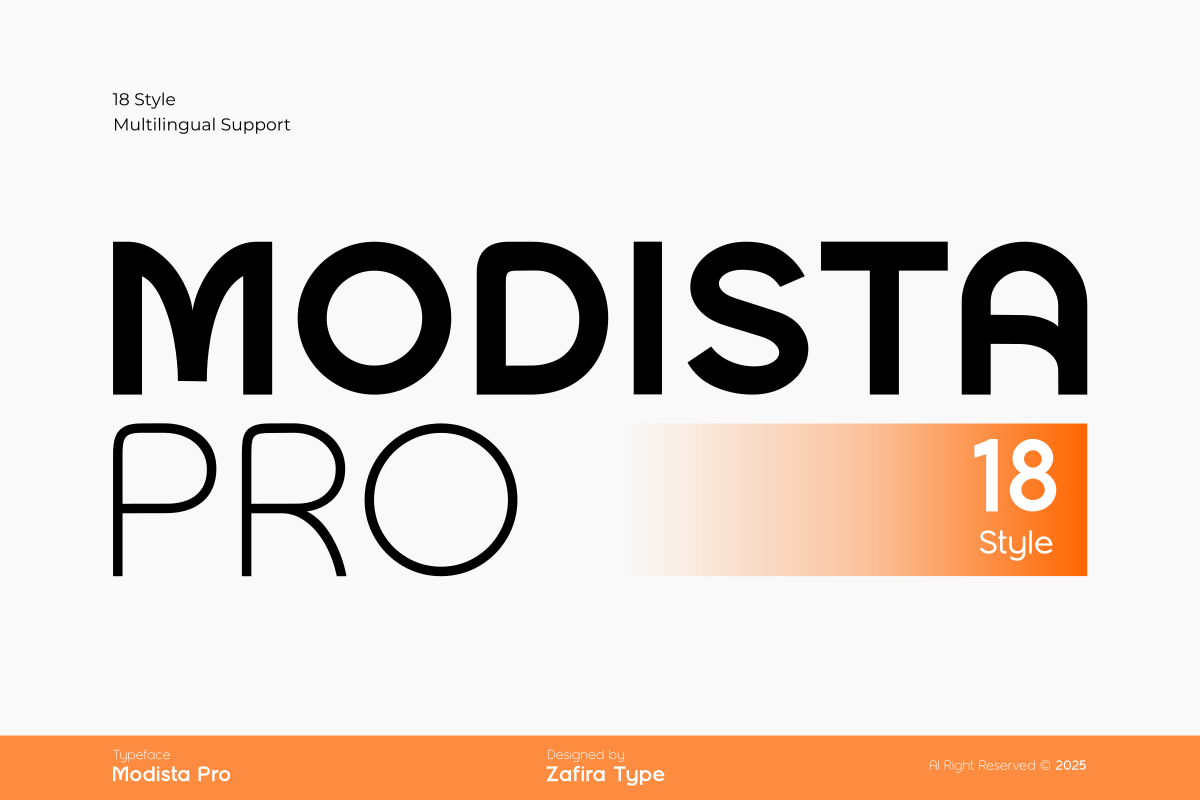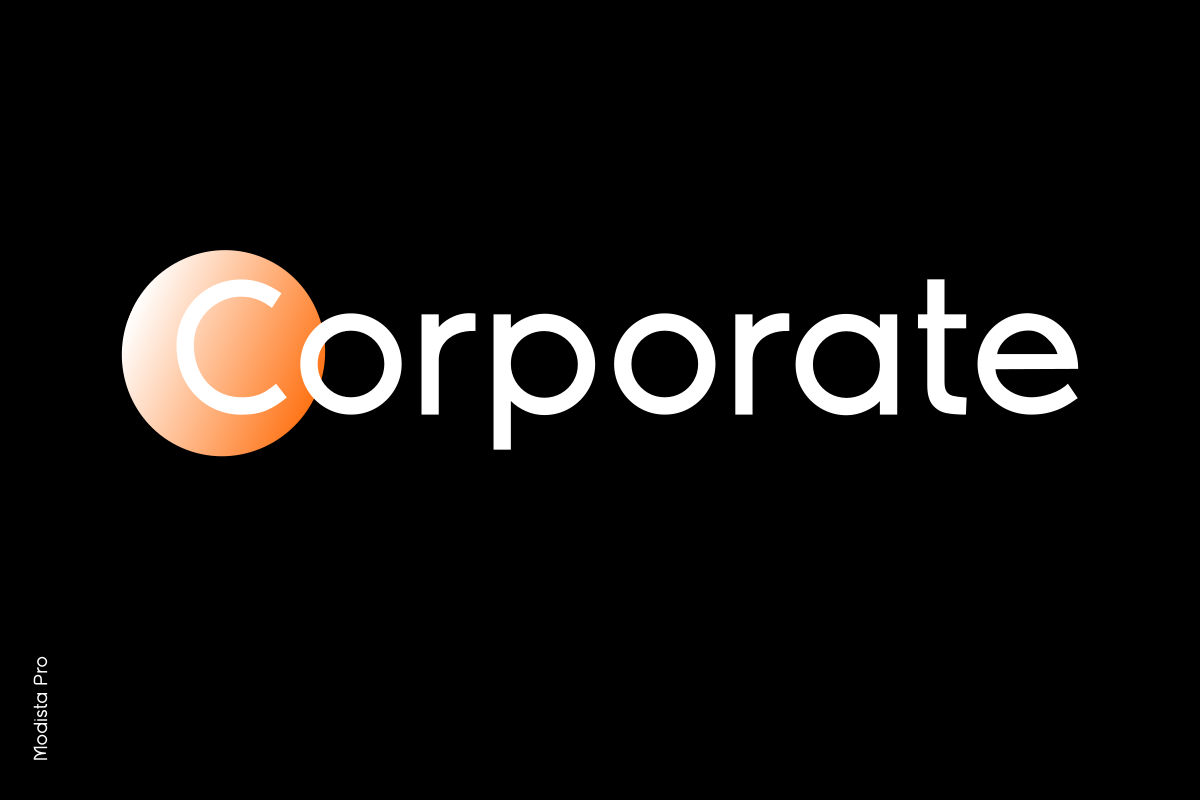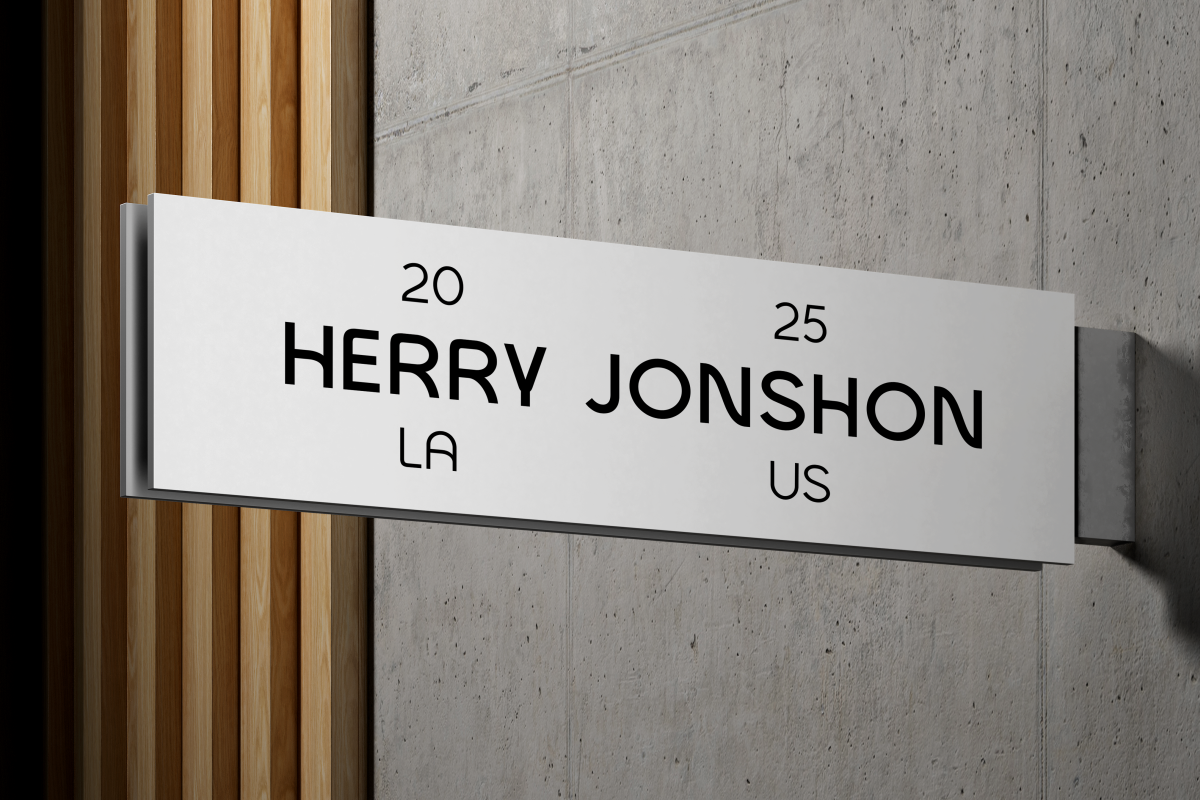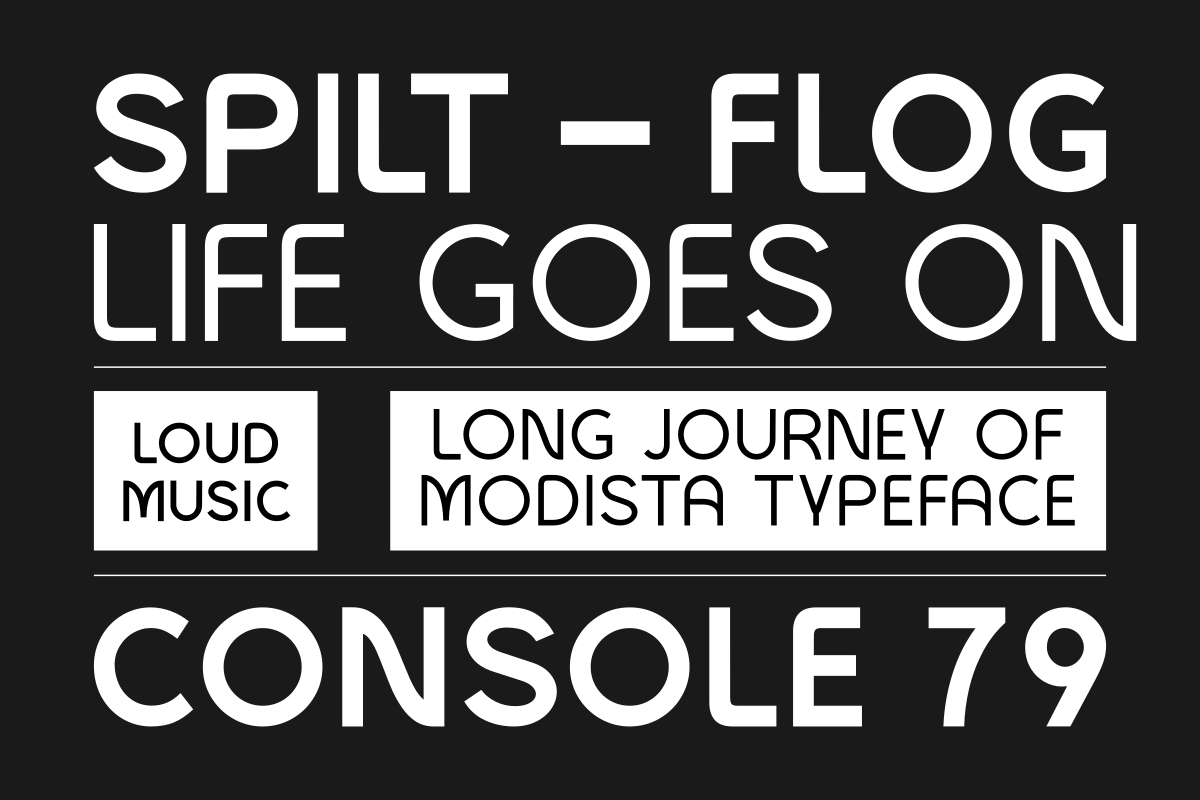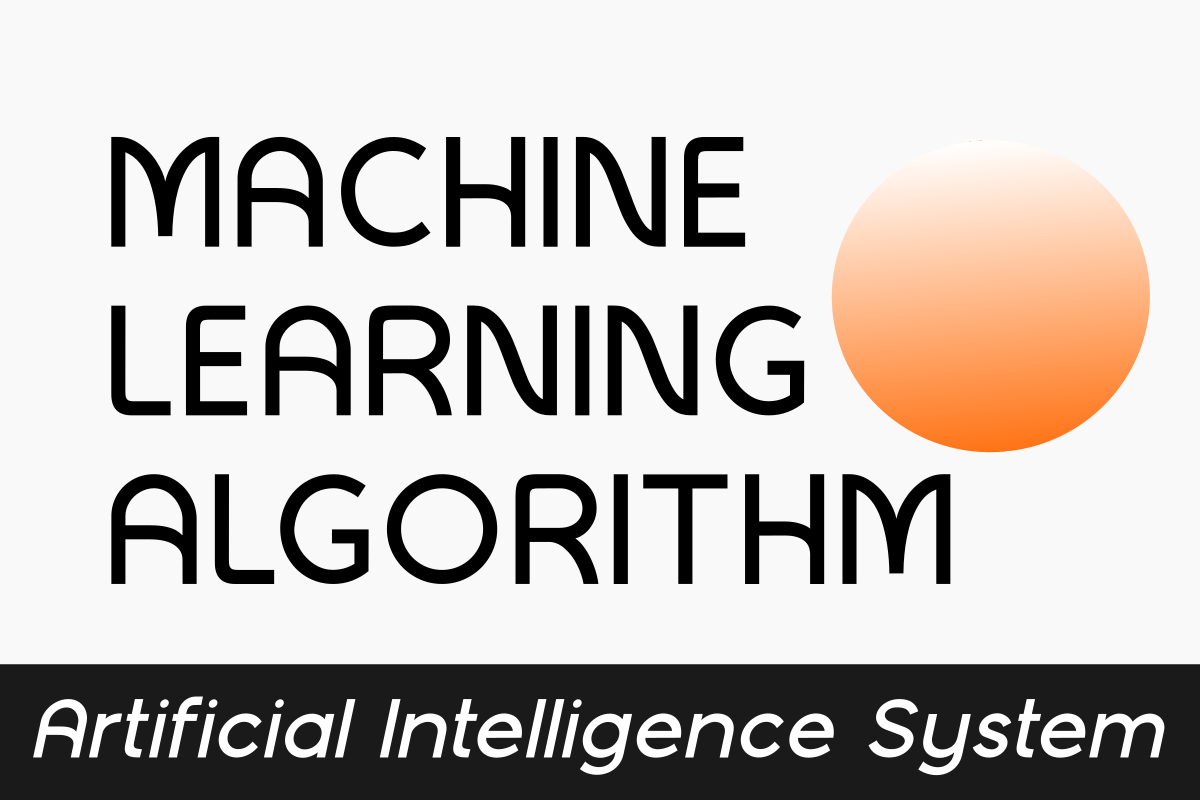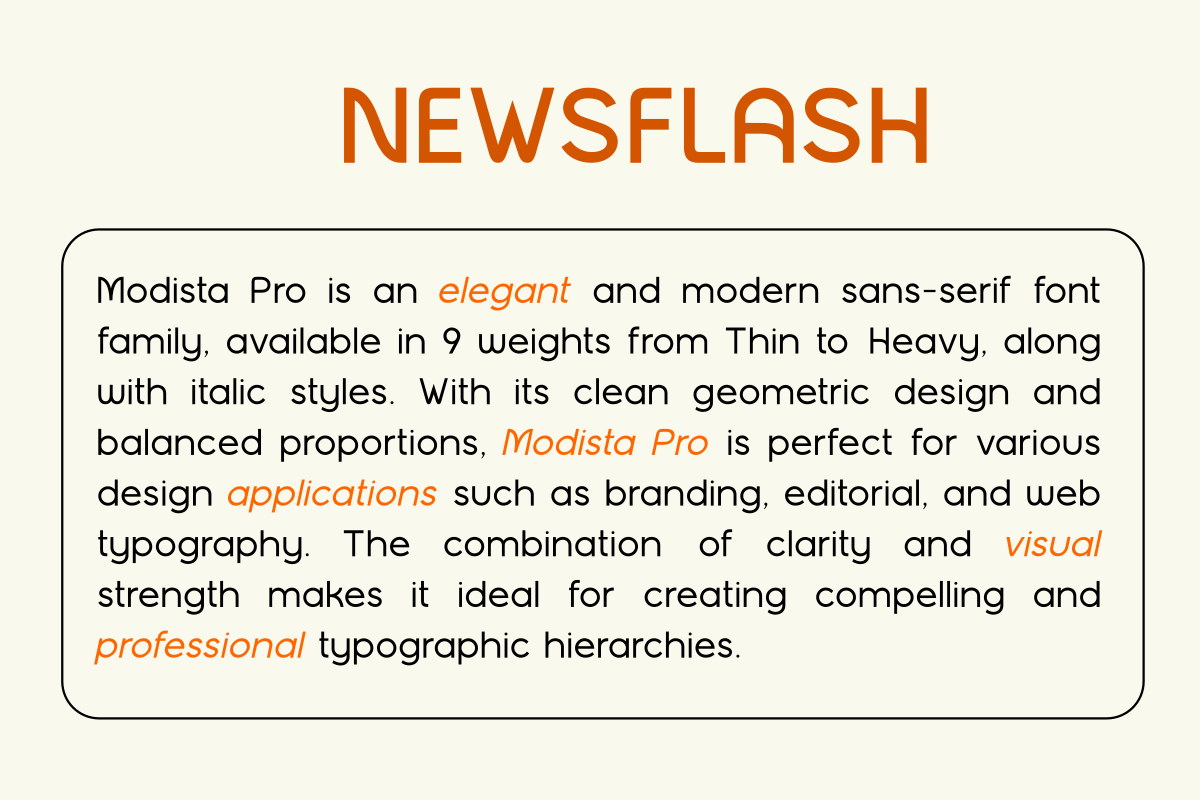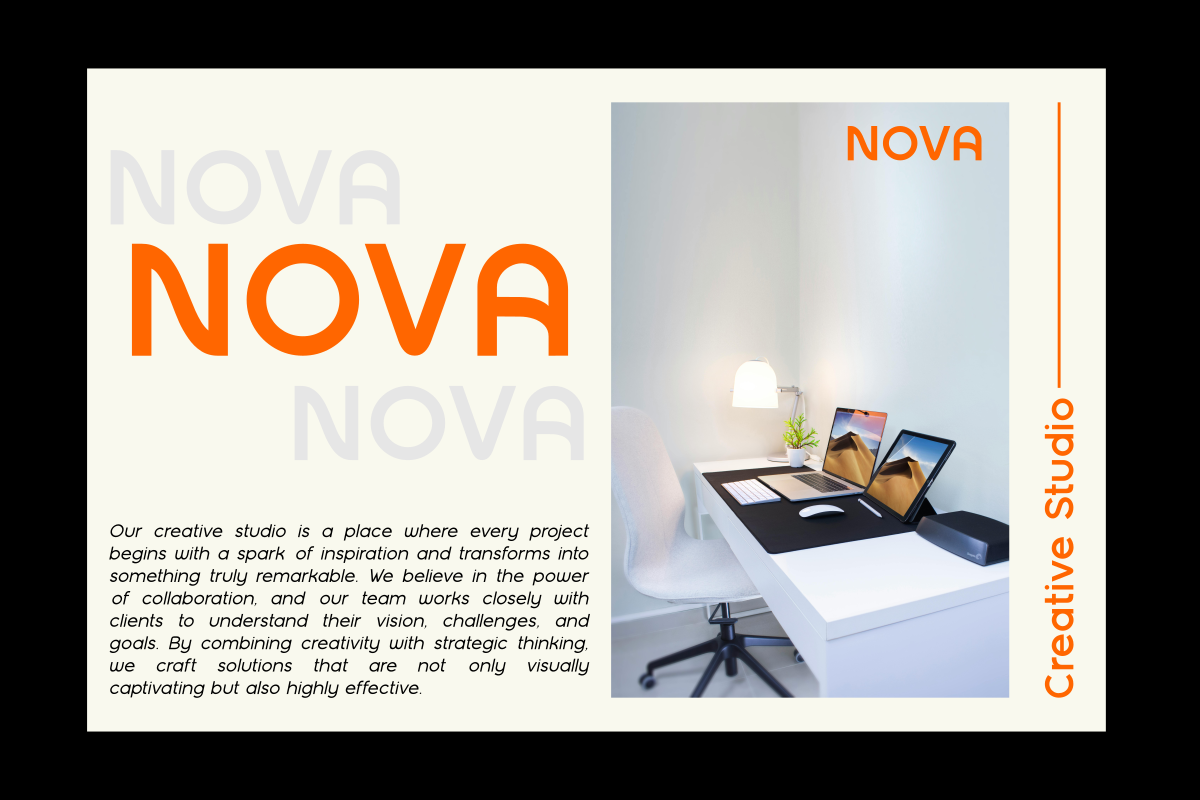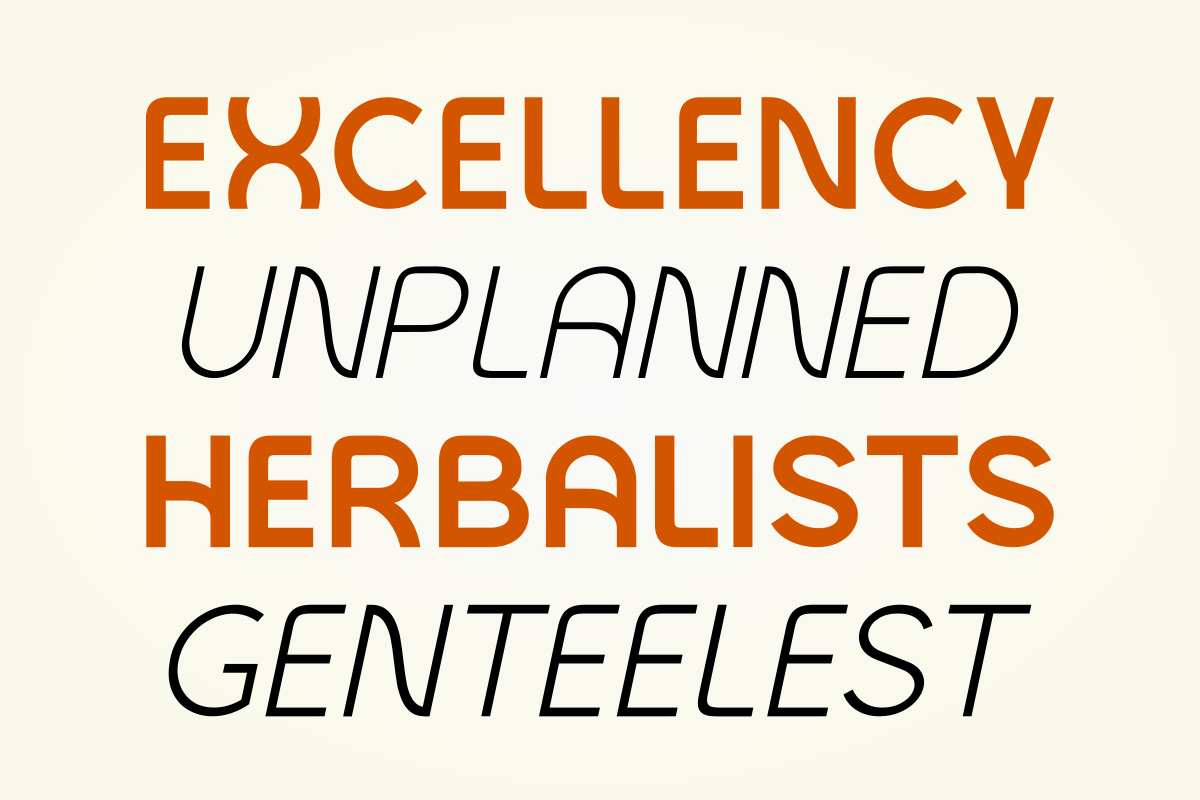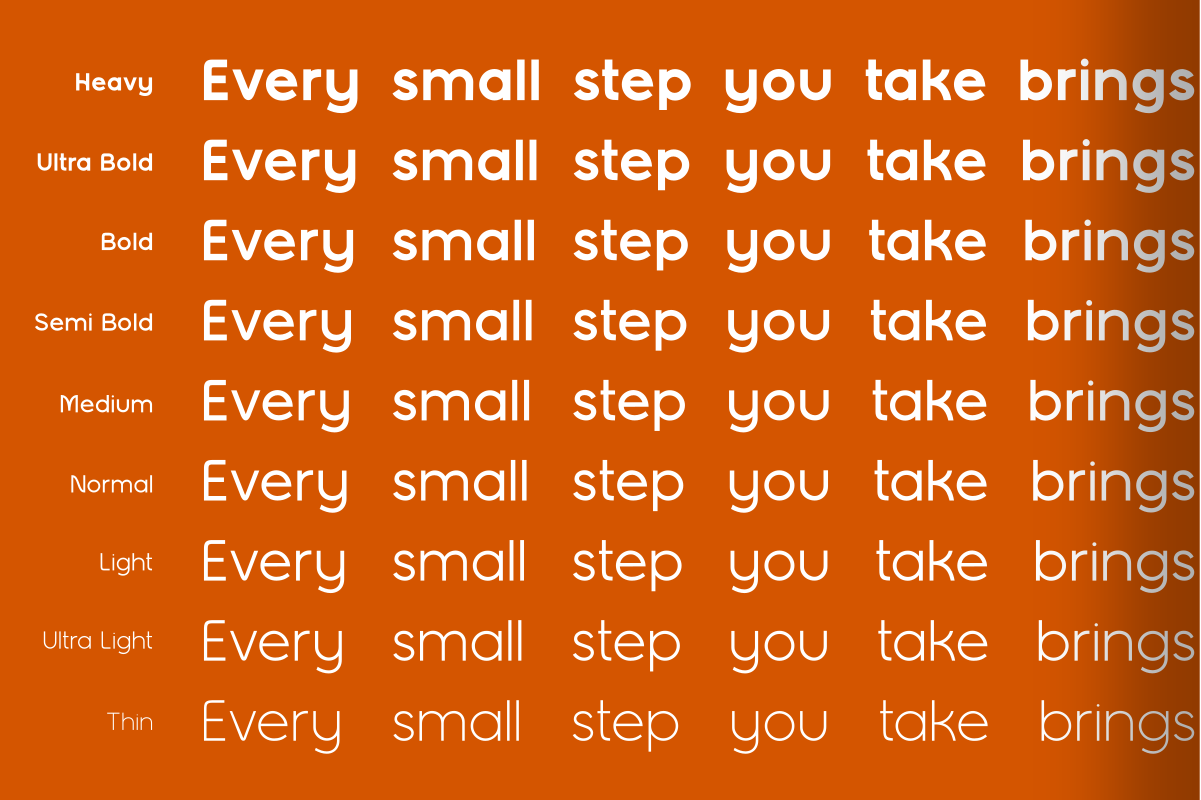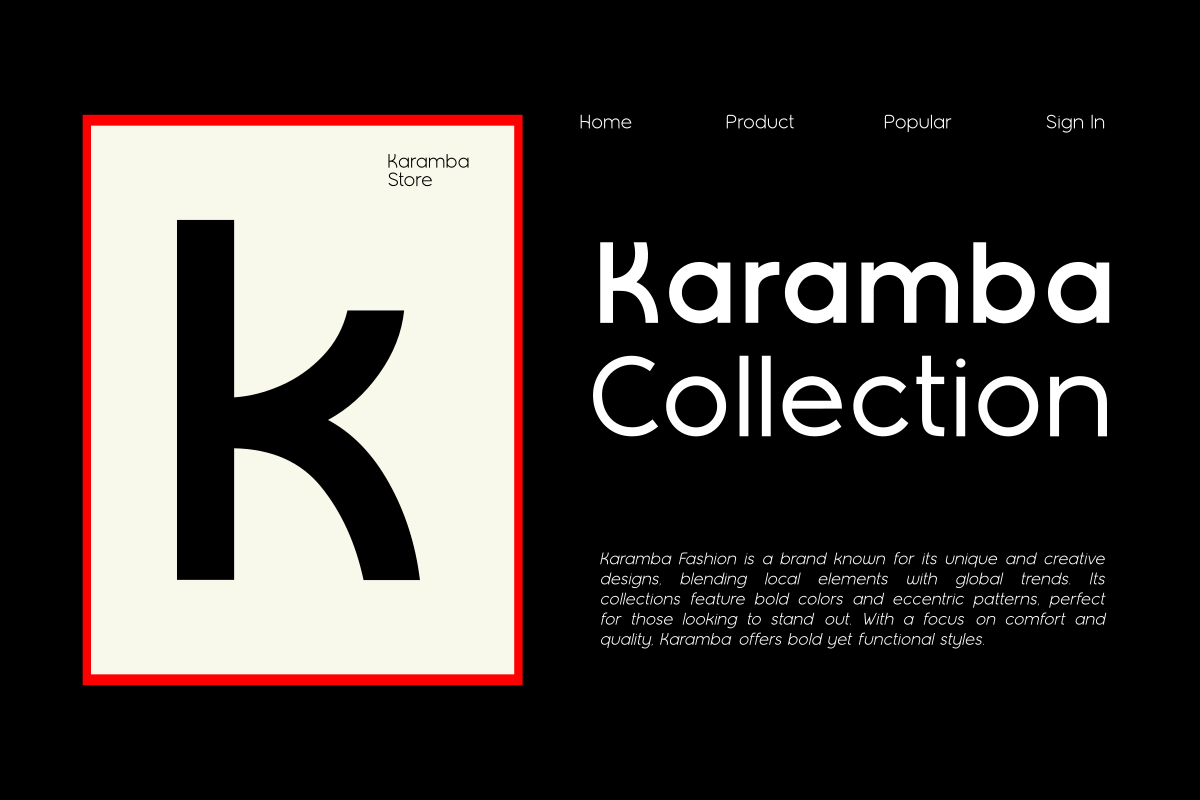
Modista Pro
Modista Pro is an elegant and modern sans-serif font family, available in 9 weights from Thin to Heavy, along with italic styles. With its clean geometric design and balanced proportions, Modista Pro is perfect for various design applications such as branding, editorial, and web typography. The combination of clarity and visual strength makes it ideal for creating compelling and professional typographic hierarchies.